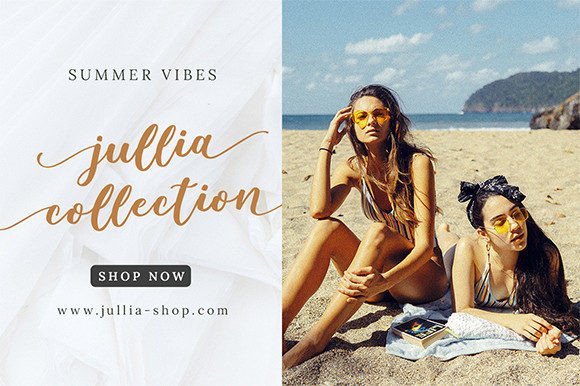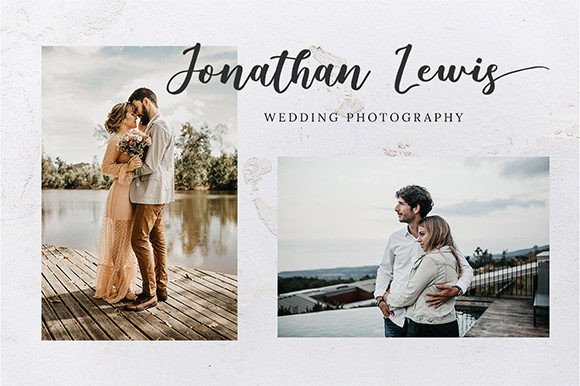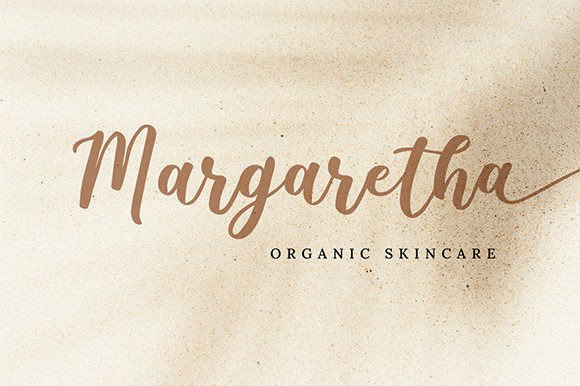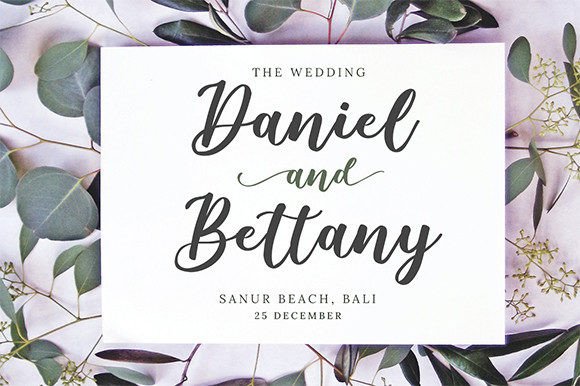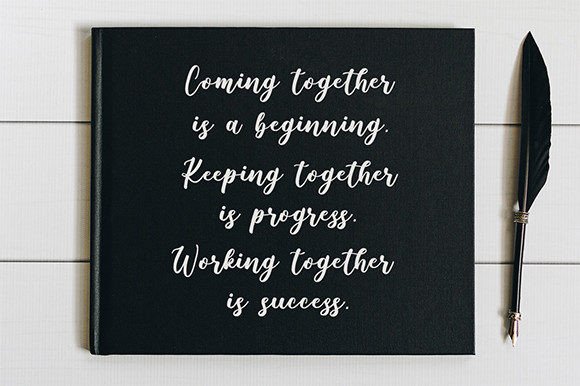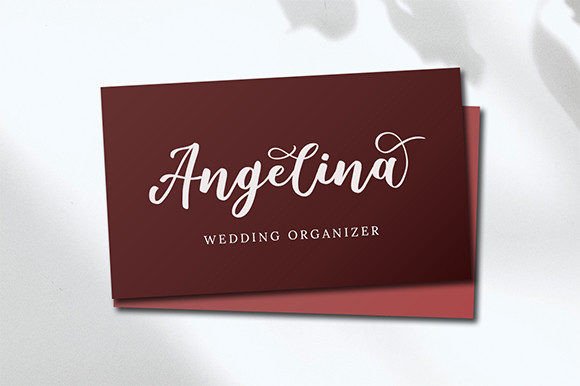
The Perfect Script for Love and Luxury: Graduation Font
There’s something magical about the moment you design a wedding invitation or a couple’s anniversary card. The words flow effortlessly, the images dance together, and the overall feeling is one of love and celebration. That’s exactly the kind of magic you can create with the Graduation Font, a sweet and romantic script font that’s sure to make your designs shine.
| 👤 Author | Bluestype Studio |
This beautiful font is not just a pretty face – it’s also PUA encoded, which means you can access all of the glyphs and swashes with ease, making it perfect for customizing your designs. Whether you’re working on a wedding invitation, a business card, or a fashion magazine, the Graduation Font is the perfect choice to add a touch of elegance and sophistication.
Key Features of Graduation Font
- Unique Characteristics: Graduation Font features a unique, hand-drawn design with a mix of serif and sans-serif elements, making it perfect for creating a celebratory and elegant atmosphere.
- Customization Options: The font includes a range of customization options, including ligatures, swashes, and alternate characters, allowing designers to add a personal touch to their designs.
Designer Review: Graduation Font
When I first laid eyes on the Graduation Font, I was immediately drawn to its playful and celebratory vibe ✨. The font’s intricate details and elegant curves make it perfect for highlighting special occasions, like graduations and anniversaries. The font’s versatility also allows it to be used for a variety of other purposes, such as event invitations, party decorations, and even personal stationery.
The font’s strengths lie in its creativity and charm ✨. The font’s designer has clearly put a lot of thought into creating a unique and eye-catching design that is sure to stand out. The font’s flexibility and adaptability make it an excellent choice for designers looking to add a touch of personality to their projects.
However, there are some limitations to consider ⚠️. The font’s intricate details can sometimes make it difficult to read, especially in smaller font sizes. Additionally, the font’s ornate design may not be suitable for all types of projects, such as business reports or technical documents.
Overall, I would say that the Graduation Font is a great choice for designers looking to add a touch of whimsy and celebration to their projects. While it may not be suitable for all types of projects, its unique design and versatility make it a valuable addition to any designer’s toolkit.
- Unique and creative design
- Perfect for special occasions and celebrations
- Highly versatile and adaptable
- May be difficult to read in smaller font sizes
- May not be suitable for all types of projects
Use the Graduation Font in conjunction with other design elements, such as balloons and confetti, to create a festive atmosphere.
The Graduation Font is commonly used for:
- Graduation invitations and announcements
- Congratulatory messages and cards
- Party decorations and signage